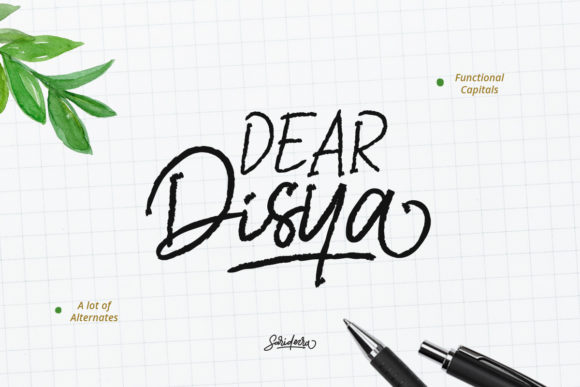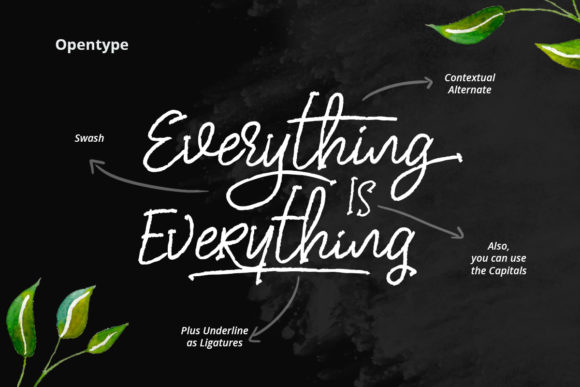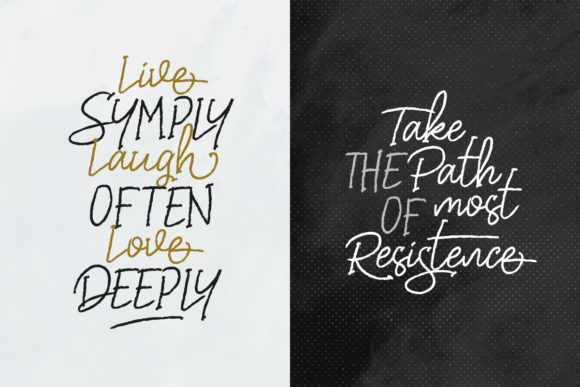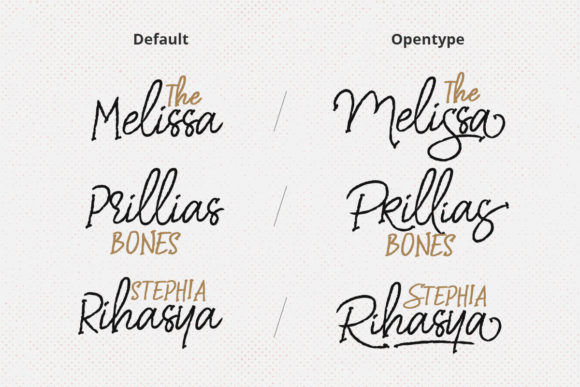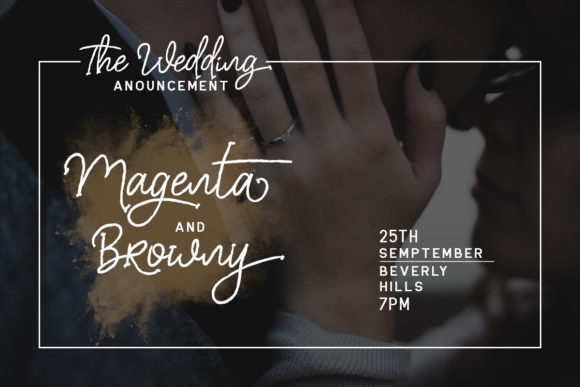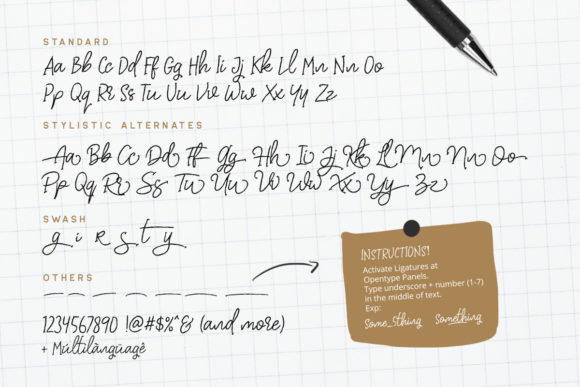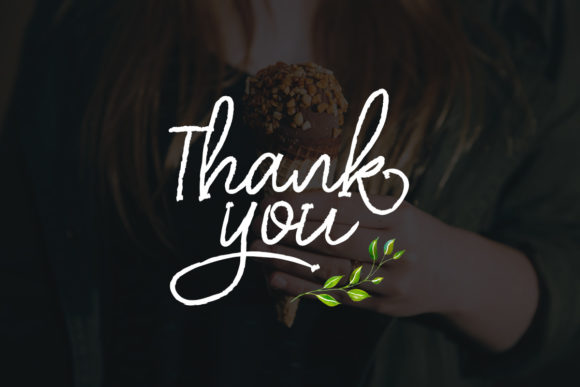
HomeScript FontsDear Disya Font Script Fonts Dear Disya Font FacebookXPinterestWhatsApp Dear Disya Font Poster 2 Dear Disya Font Poster 3 Dear Disya Font Poster 4 Dear Disya Font Poster 5 Dear Disya Font Poster 6 Dear Disya Font Poster 7 About Dear Disya Font The Dear Disya is a striking handwritten font. Its letters have a good readability and an elegant feel. DOWNLOAD ON CREATIVE FABRICAThis font is sold and delivered by Creative Fabrica. Font Canyon may earn a commission if you buy through this link. People also explored Digital Paper Font Angella Monogram Font Botanical Monogram Font Hei Cute Bridney Signature Font Montana Victory Font Box Collider Font Blussafir Script Macchiato Font 338 0 TagsDear Disya Font Previous articleShutter Stone FontNext articleHobla Font LEAVE A REPLY Cancel reply Comment: Please enter your comment! Name:* Please enter your name here Email:* You have entered an incorrect email address! Please enter your email address here Website: Save my name, email, and website in this browser for the next time I comment. Personal Use Free Chandella Personal Use Free Read more about this font Bollado Personal Use Free Read more about this font Stone Cold Personal Use Free Read more about this font Sweet Beautiful Personal Use Free Read more about this font BLOG Free vs Paid Fonts: Why Investing in Premium Fonts Is Worth It Free vs Paid Fonts: Why Premium Fonts Are Worth It in 2025 The debate of free vs paid fonts continues in the design world. While... The 10 Best Handwriting Fonts to Add Personality to Your Designs Exploring Font Trends Where to Buy American Fonts Online in 2024